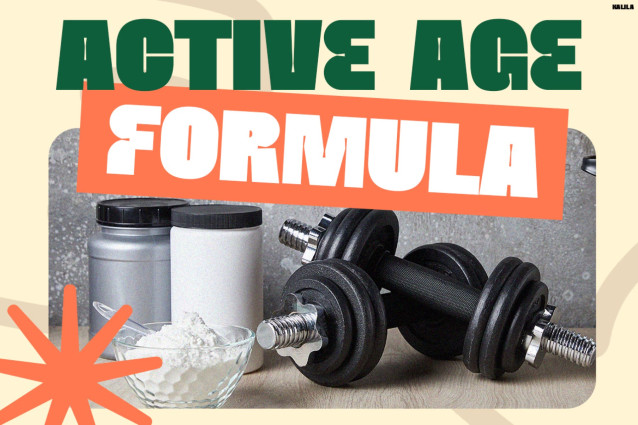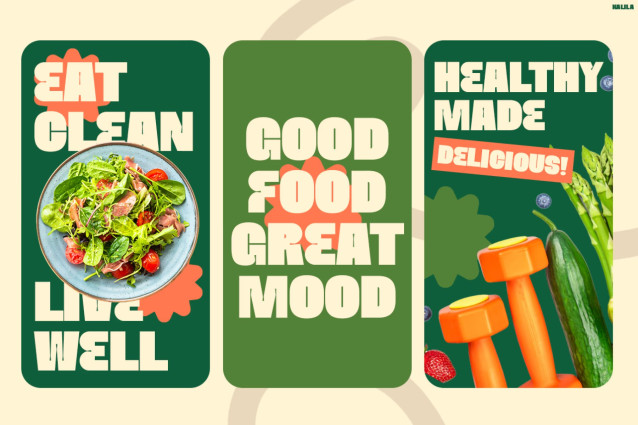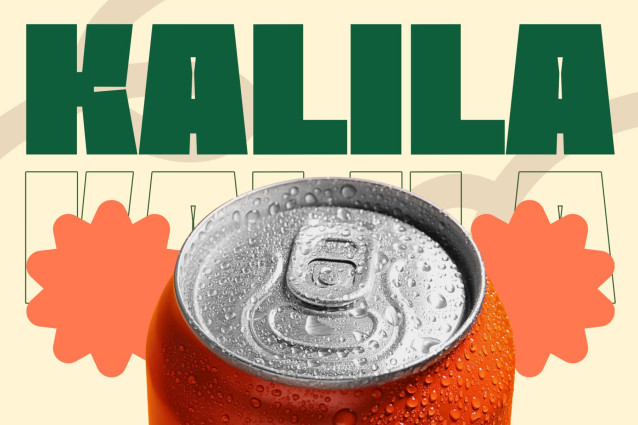
Instagram Font Kalila is a bold display font created for sports supplements, vitamins, and active lifestyle branding. Not only does it feature strong geometric letterforms, but it also delivers a clean and professional appearance. Moreover, its powerful structure helps products stand out on crowded shelves and digital marketplaces. In addition, the bold shapes create instant visual impact, making packaging and promotional materials more memorable. Furthermore, Kalila balances strength and readability, ensuring every headline remains clear and effective. As a result, brands can communicate confidence, energy, and trust more successfully.
Meanwhile, its modern aesthetic aligns perfectly with today’s health-conscious market. Additionally, the font supports 67 languages, allowing brands to connect with global audiences. Therefore, it is an excellent choice for international marketing campaigns.